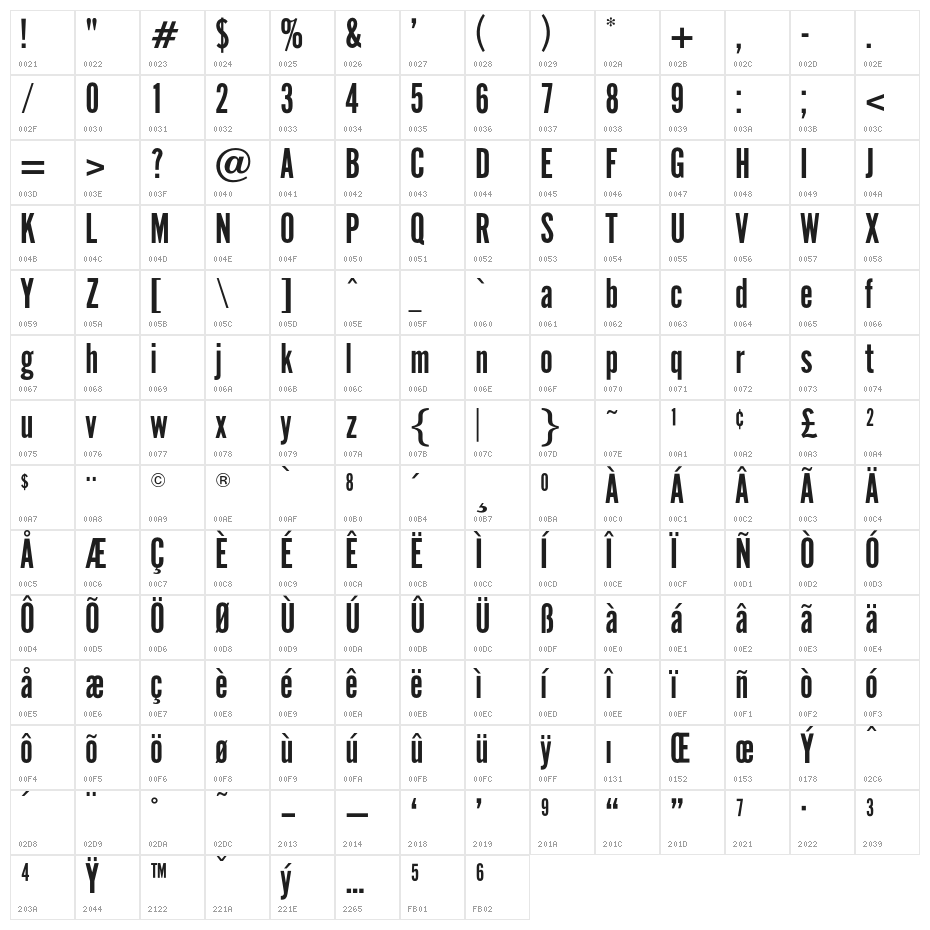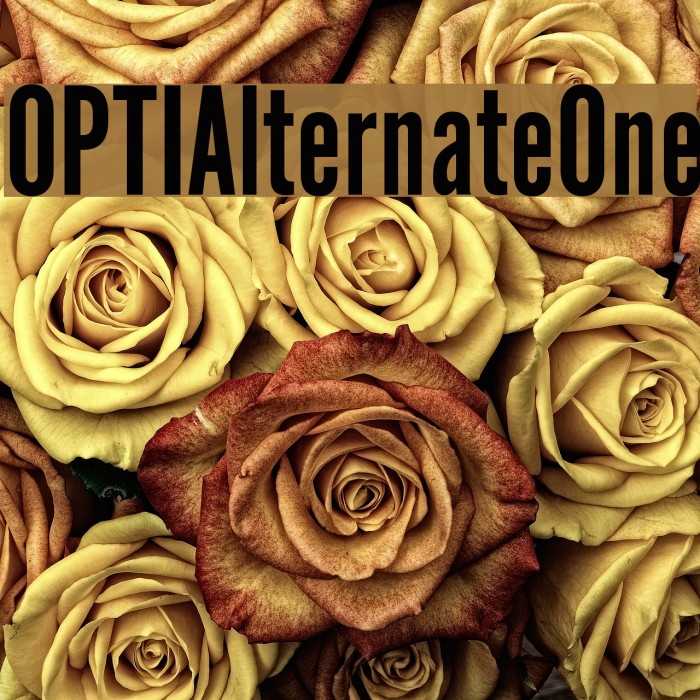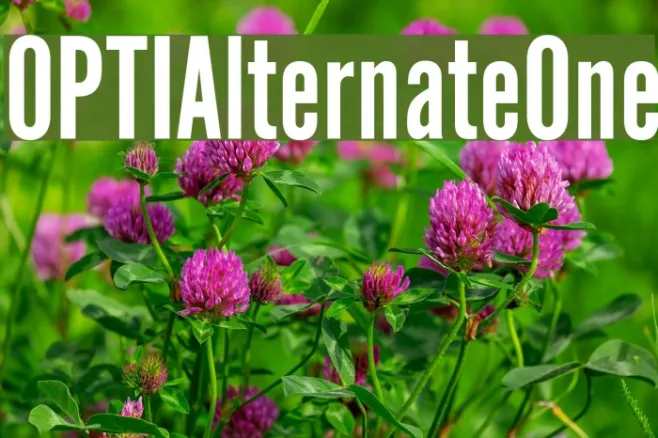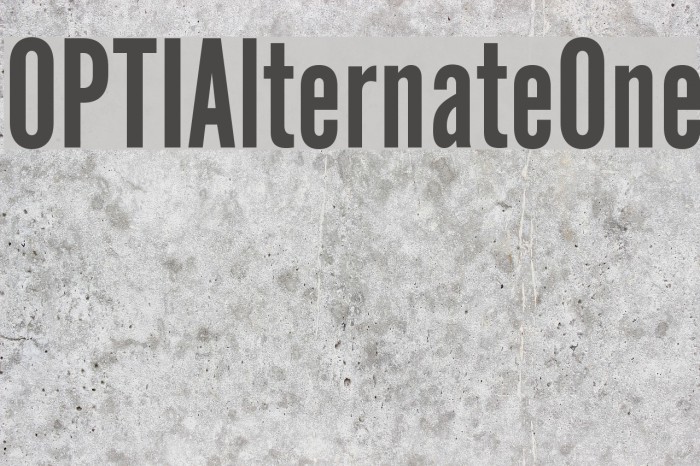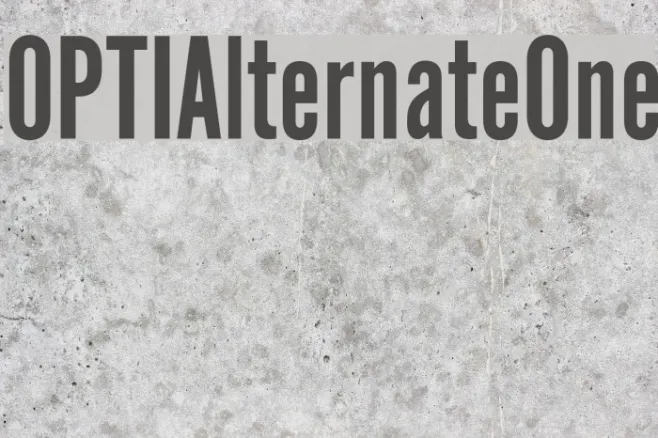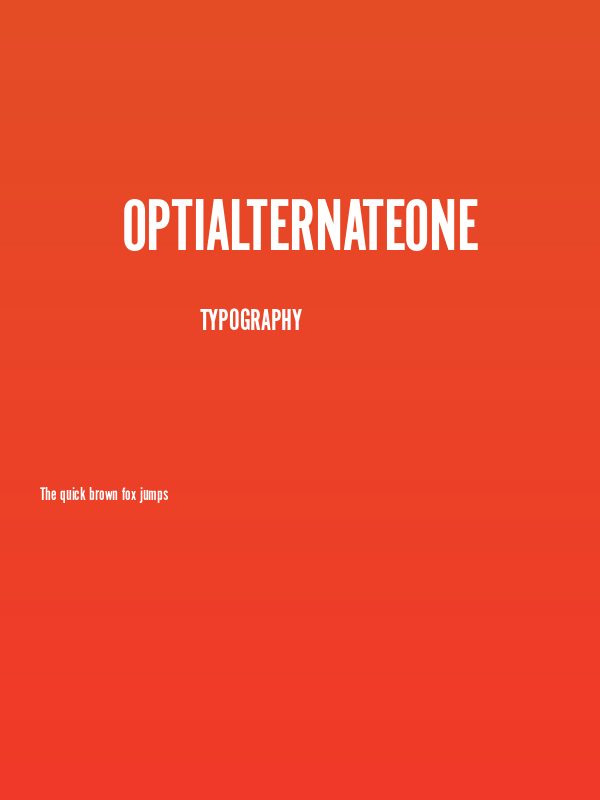
OPTIAlternateOne Font
OPTIAlternateOne Description
This font features a bold and impactful design with strong, thick strokes and a commanding presence. The uppercase letters are tall and imposing, while the lowercase letters maintain a consistent weight and style, ensuring readability and uniformity. The numbers are equally bold, making them stand out effectively. Special characters are designed with the same boldness, ensuring they integrate seamlessly with the rest of the typeface. The overall look is modern and assertive, suitable for making a strong visual statement.
| Proposed Projects | Ideal for headlines, posters, branding, and any project requiring a strong visual impact. |